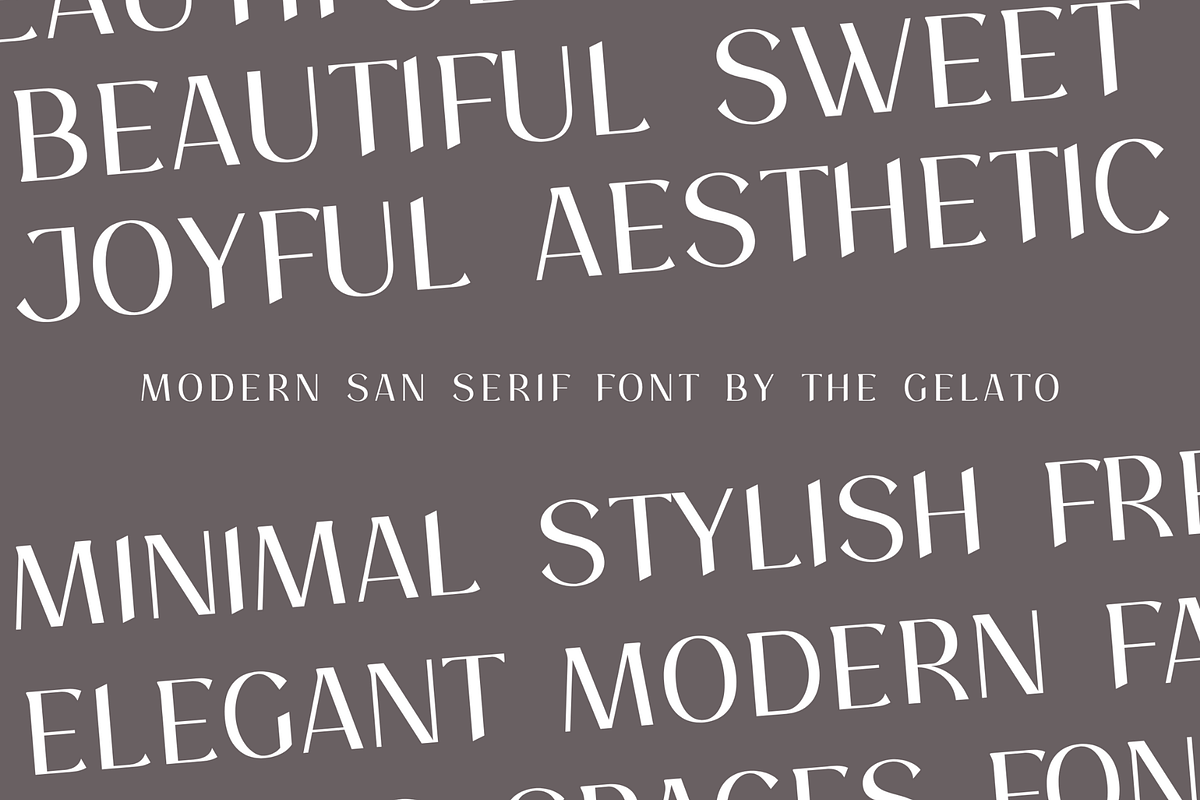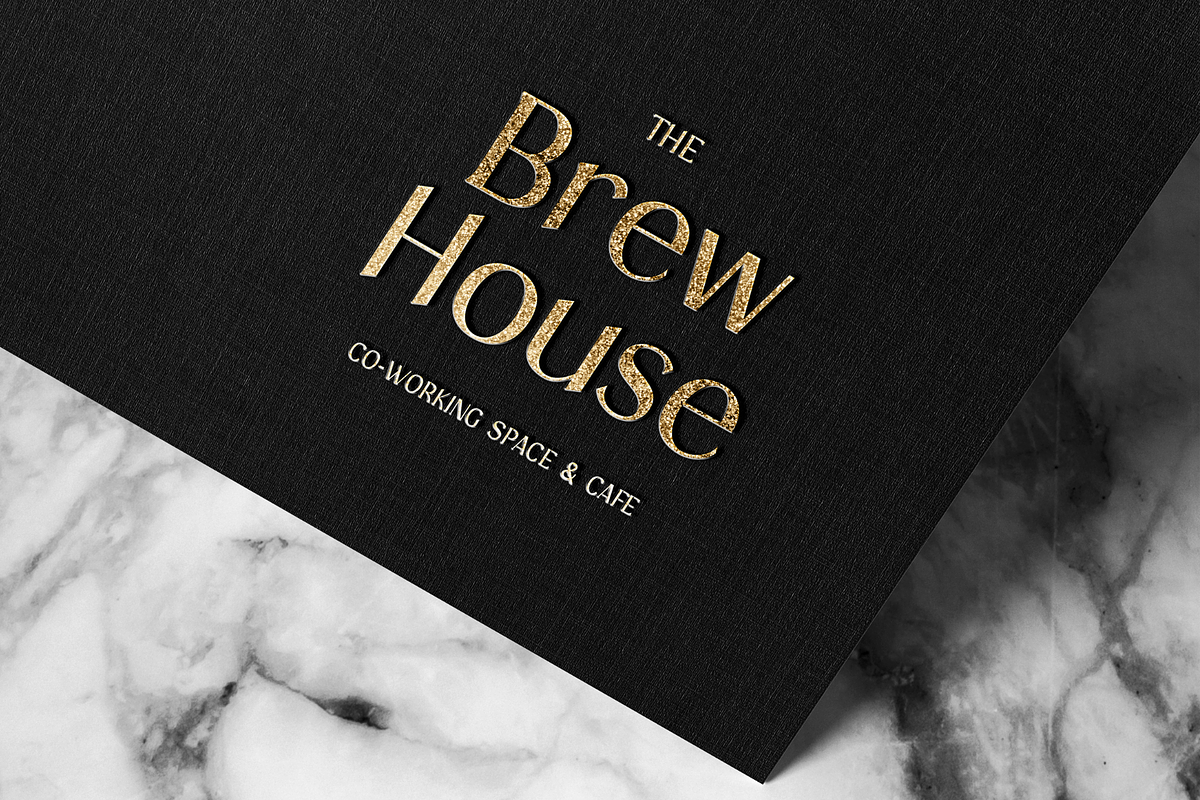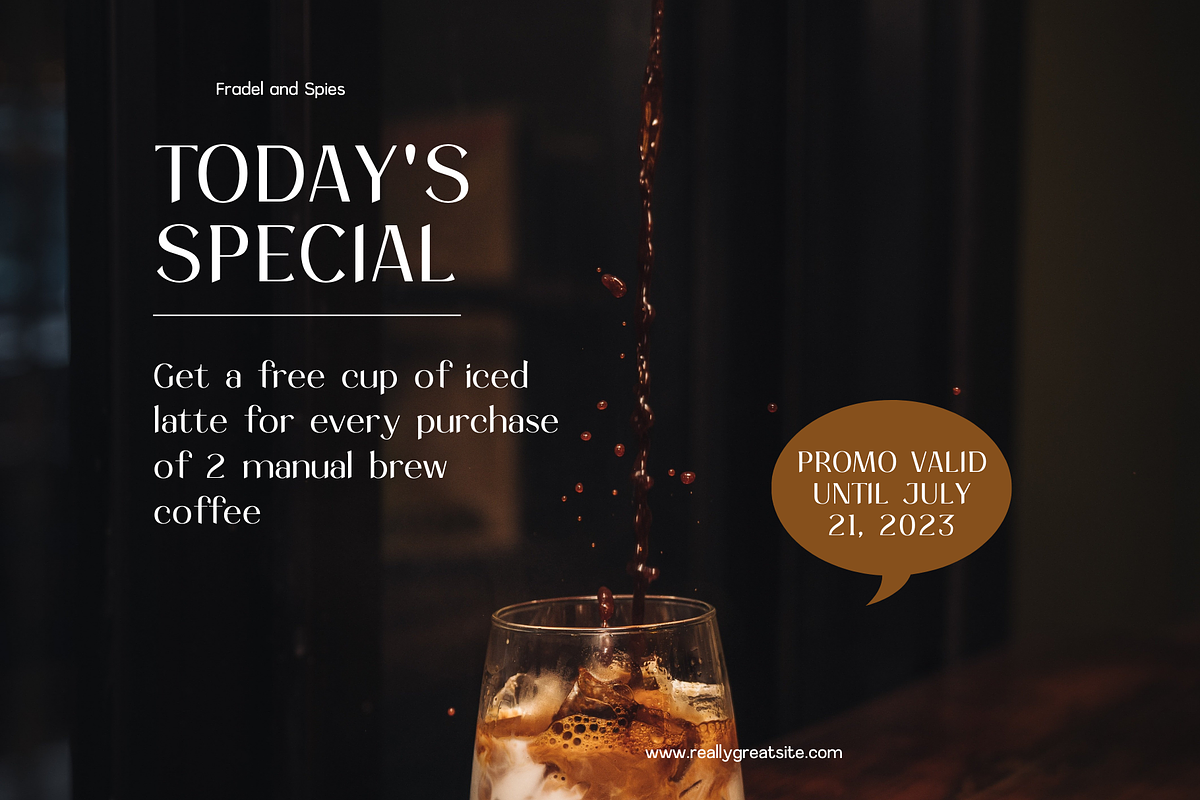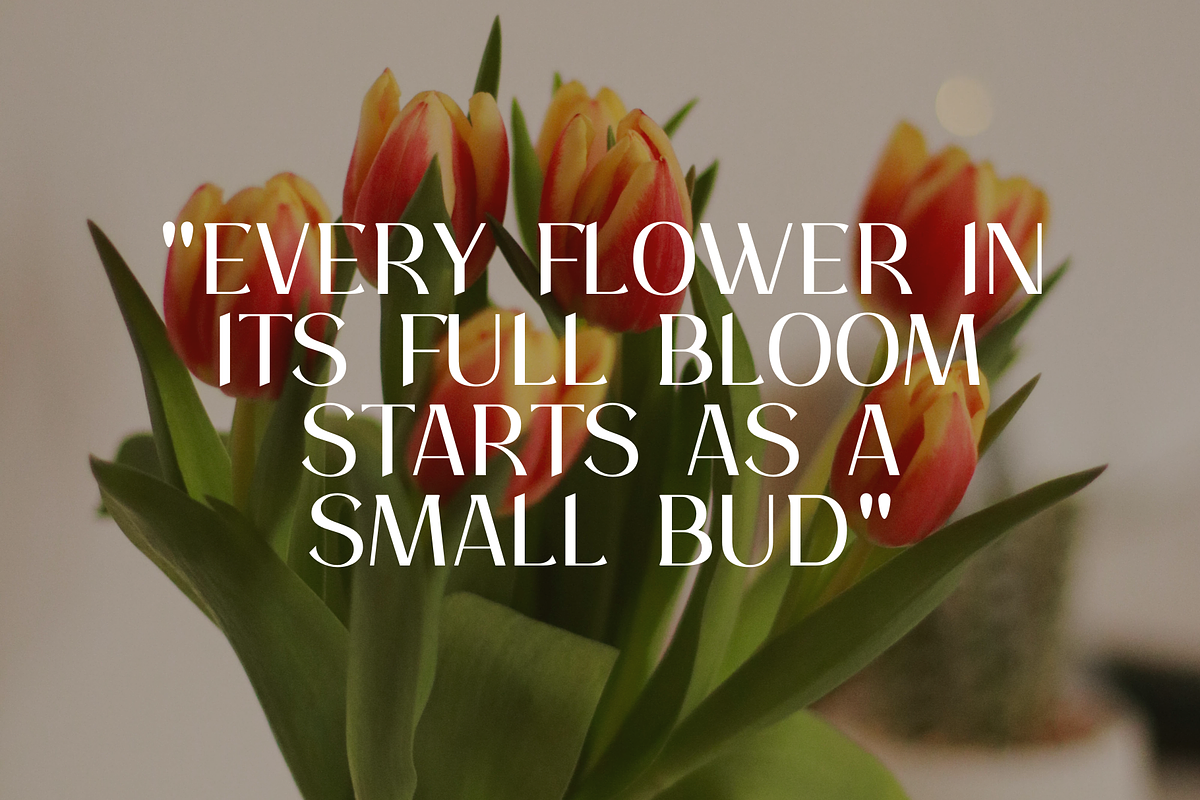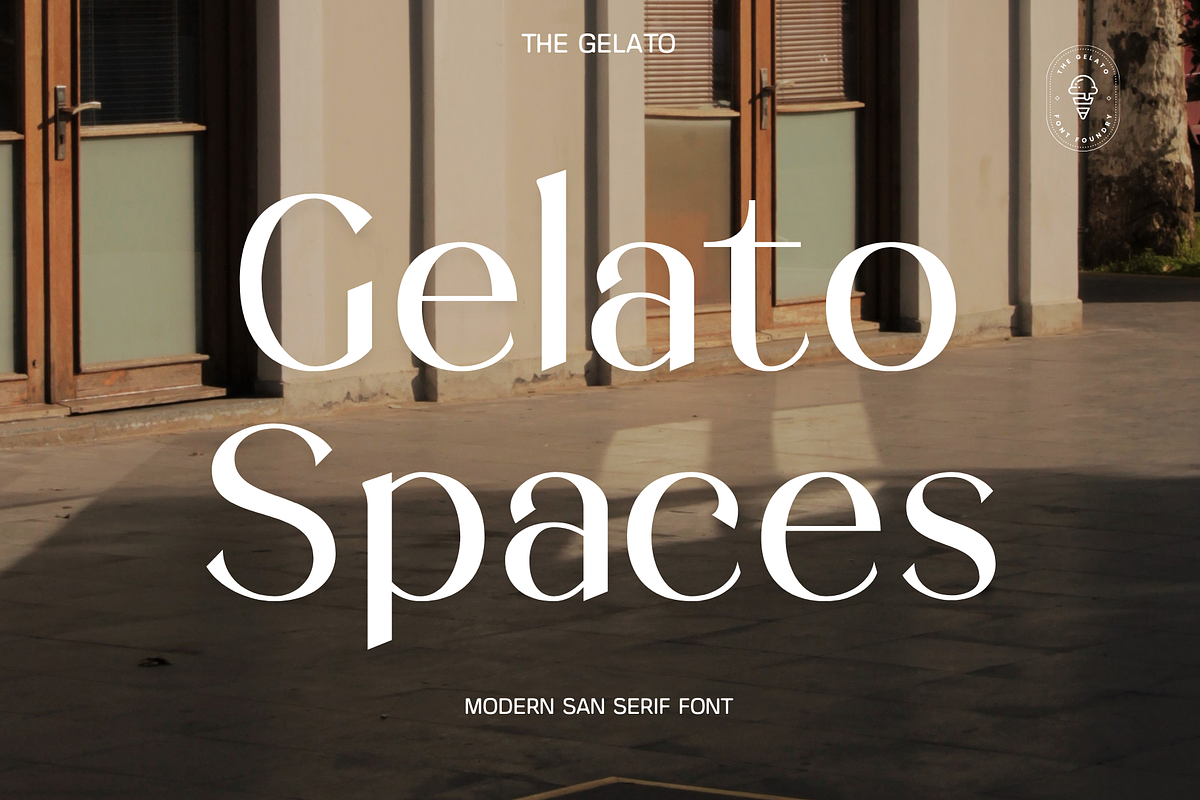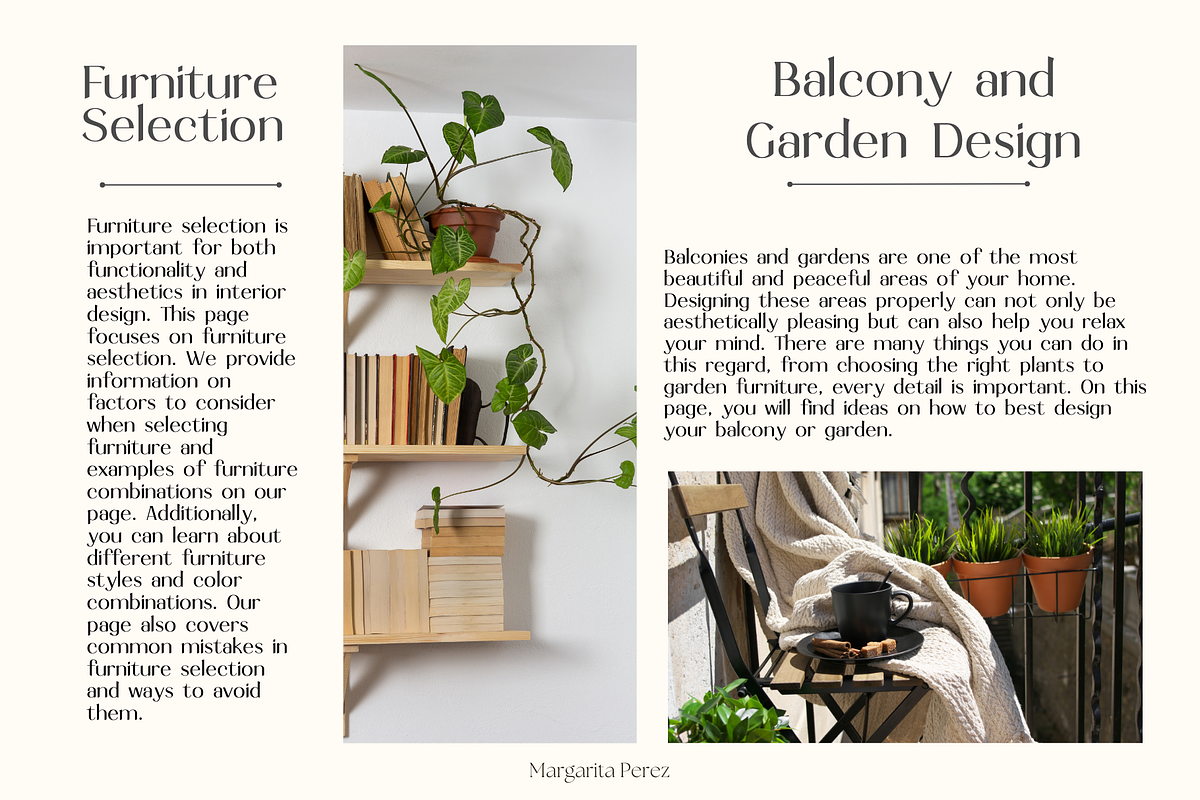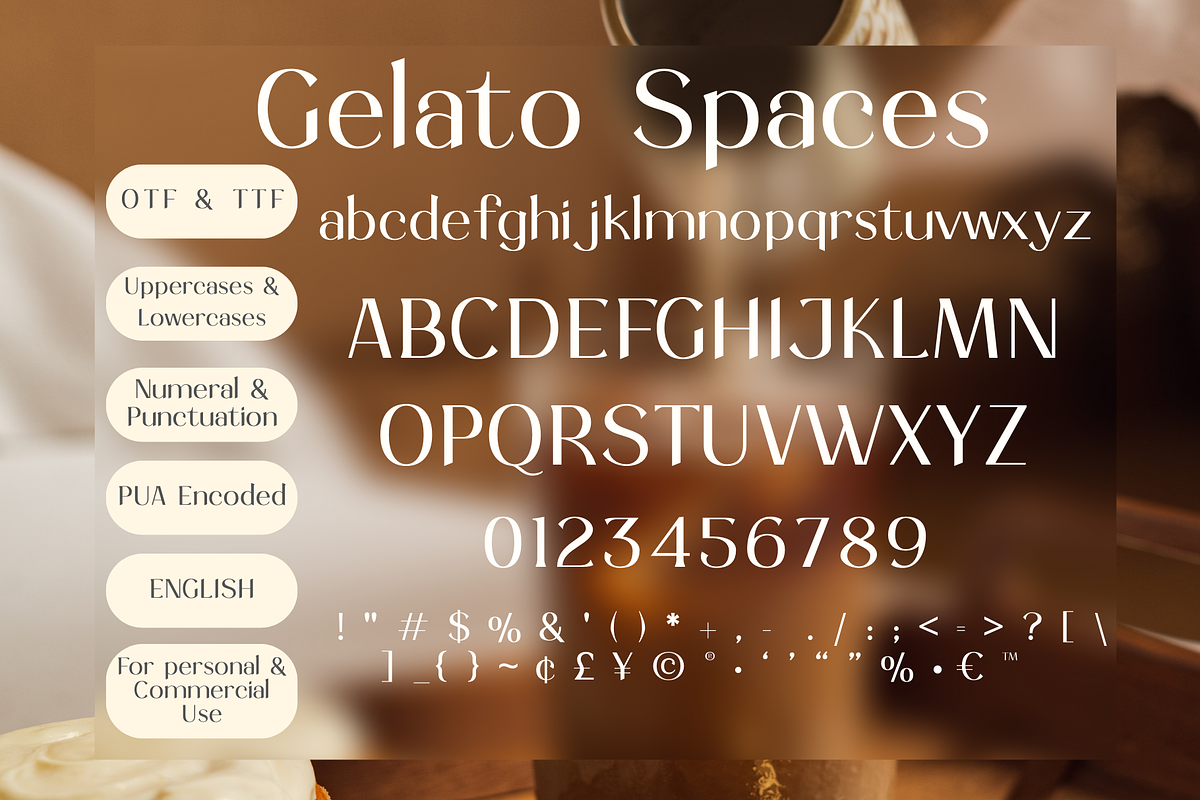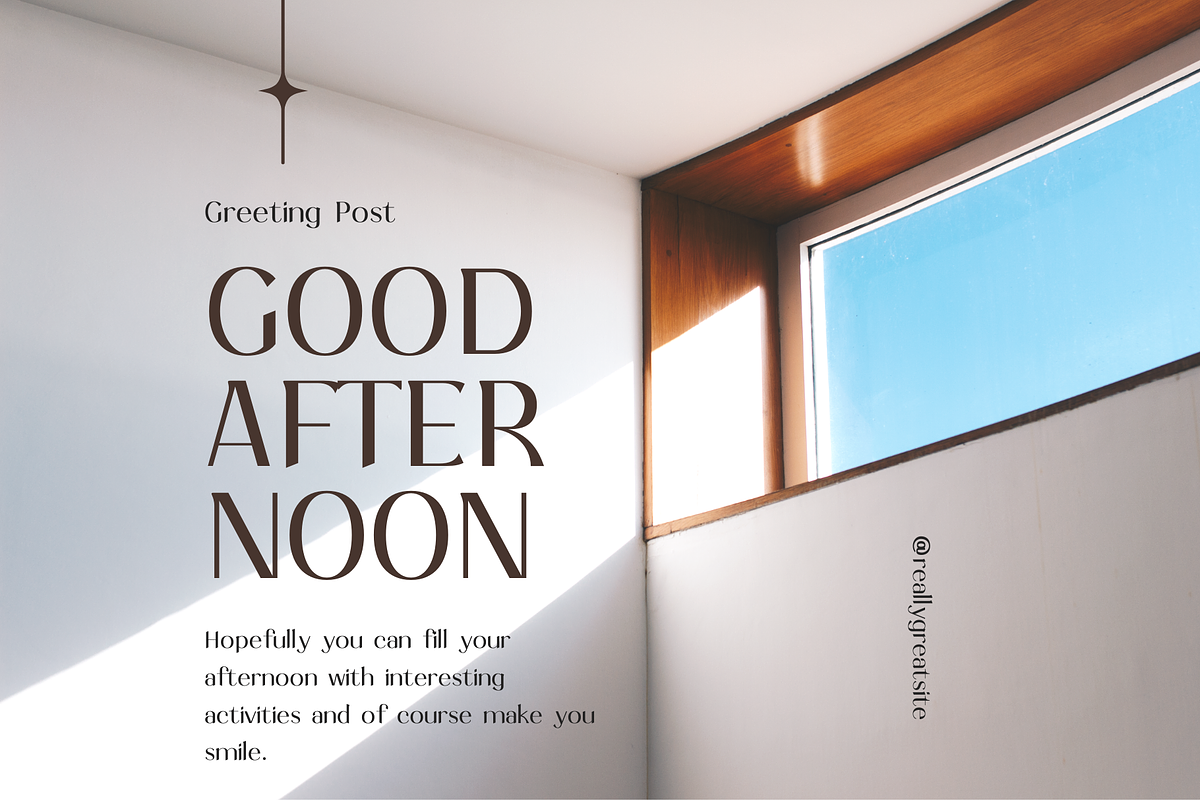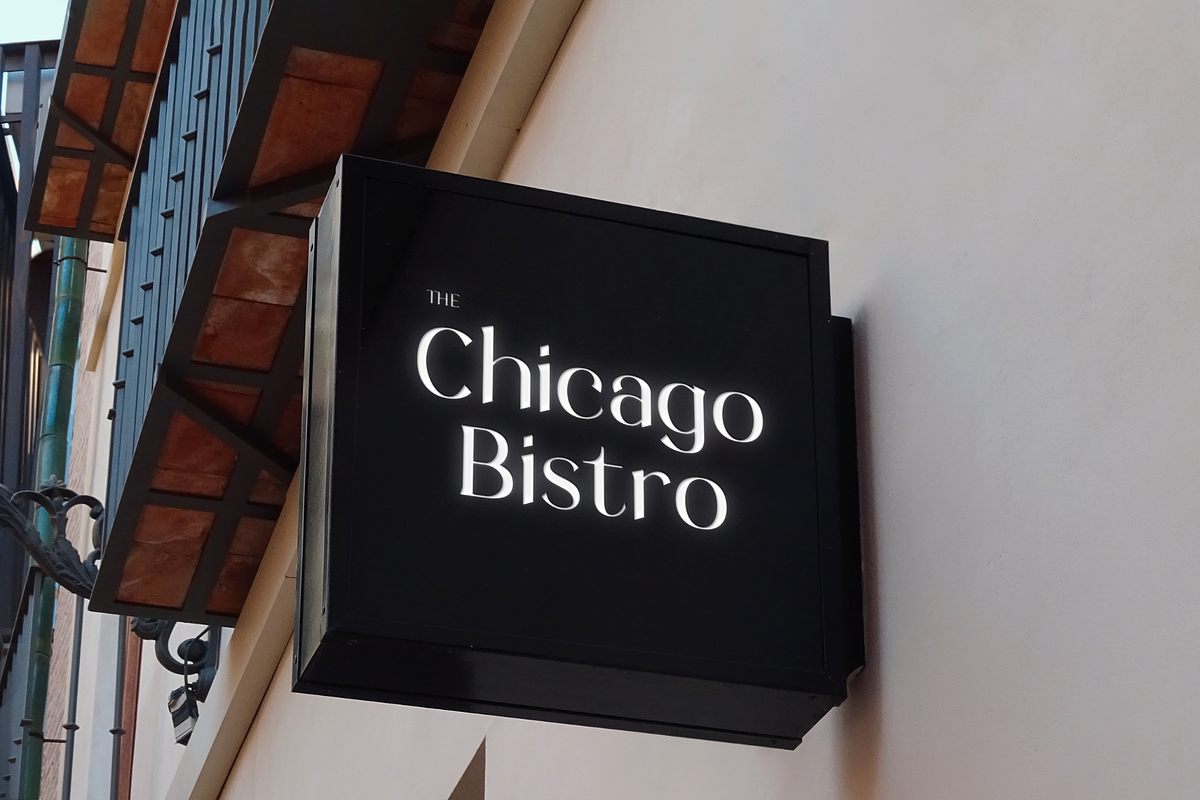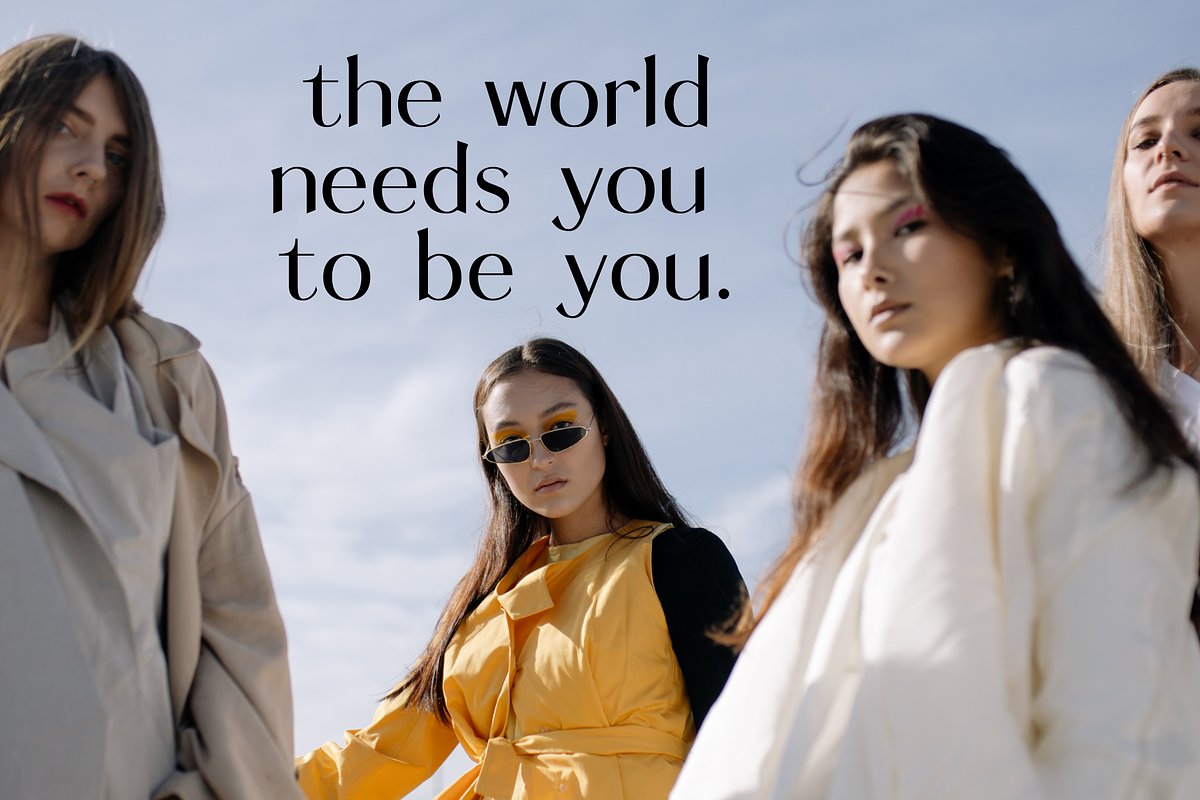
Gelato Spaces: Modern Sans Serif
The Gelato Spaces Font is a Modern Sans Serif Font that can be used as an Aesthetic Sans Serif Font, Classy Logo Font, Minimal Branding Font, Elegant Business Font, Luxury Brand Font, Unique Display Font, Modern Branding Font, Elegant Canva Font, Minimal Packaging Font, Handcrafted Editorial Font, Premium Logo Font
Perfectly suitable for numerous use such as quotations, banners, logos, product packaging, titles, headers, Business cards, menu lists, and invitation cards!